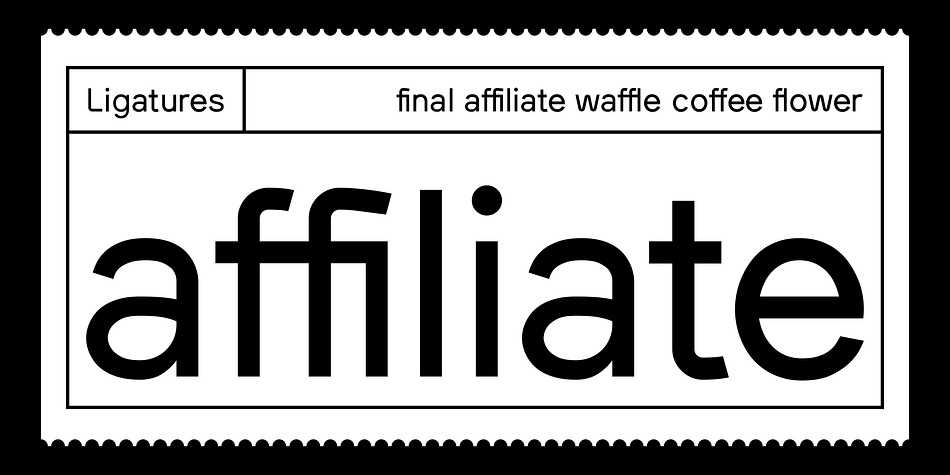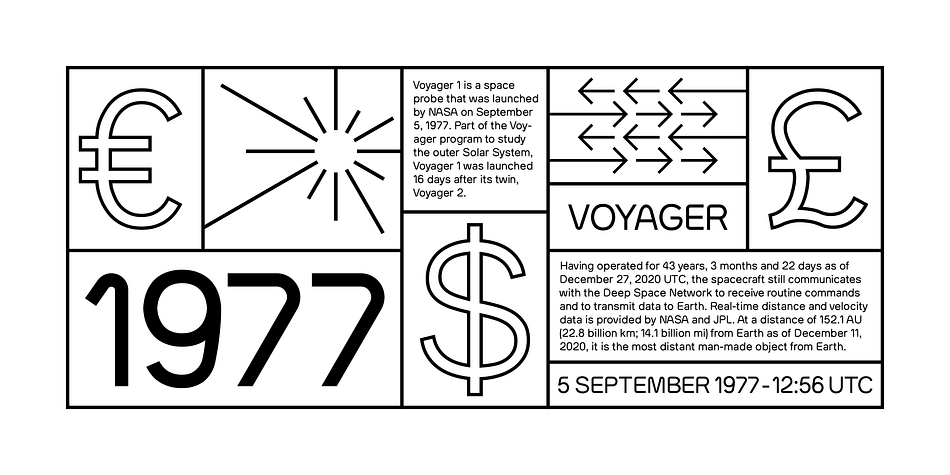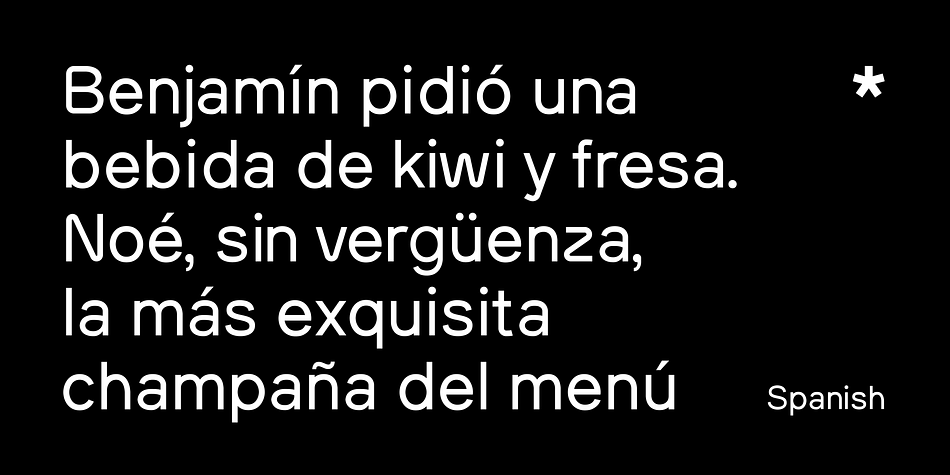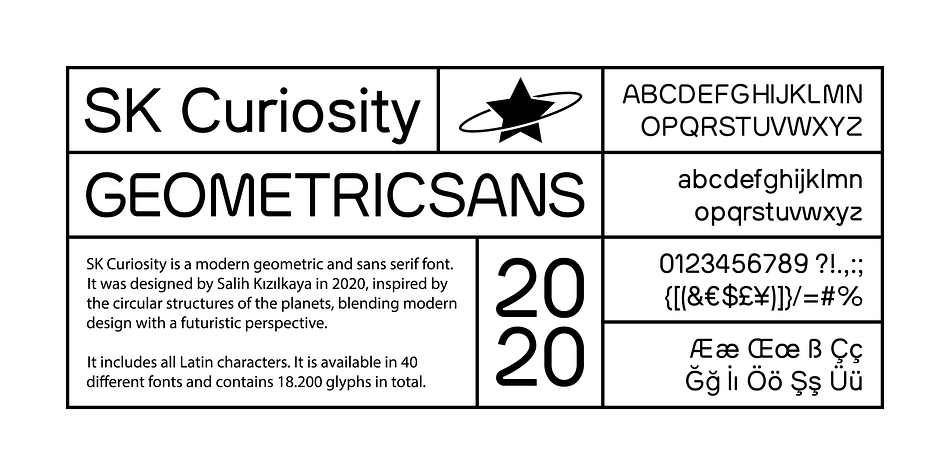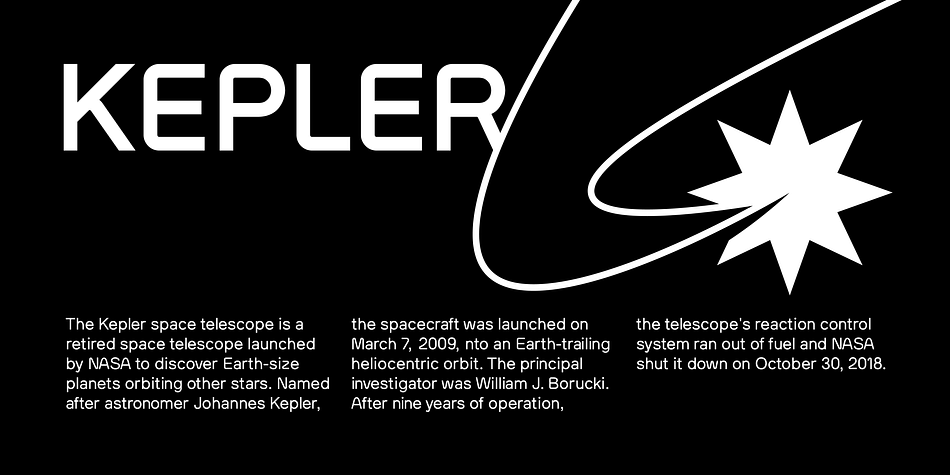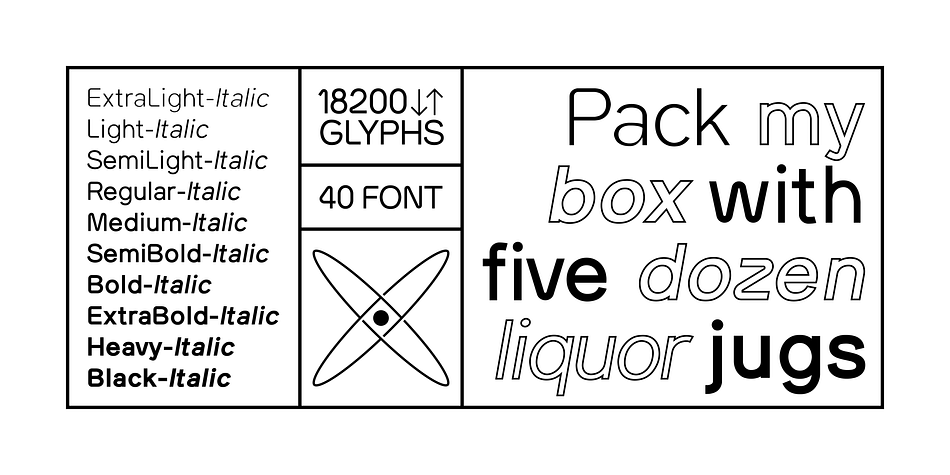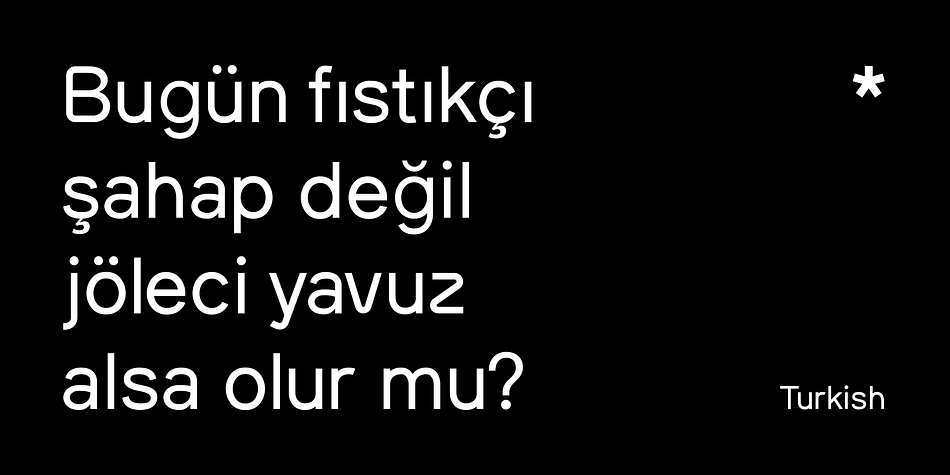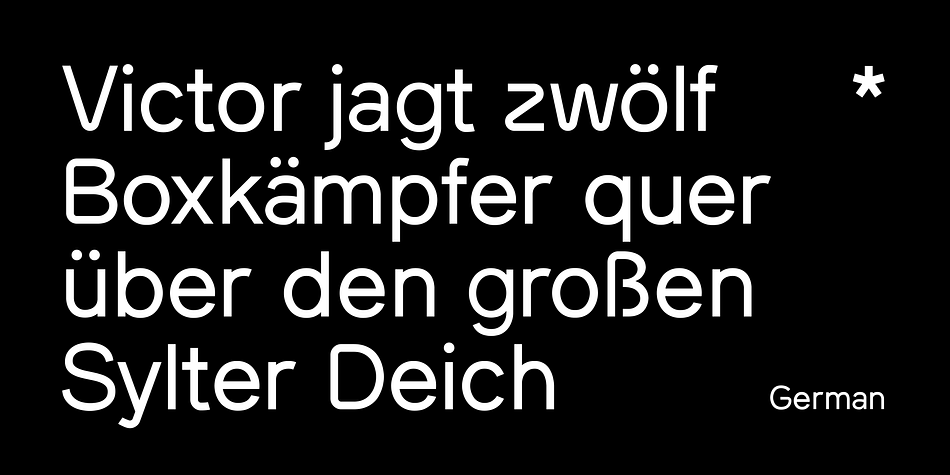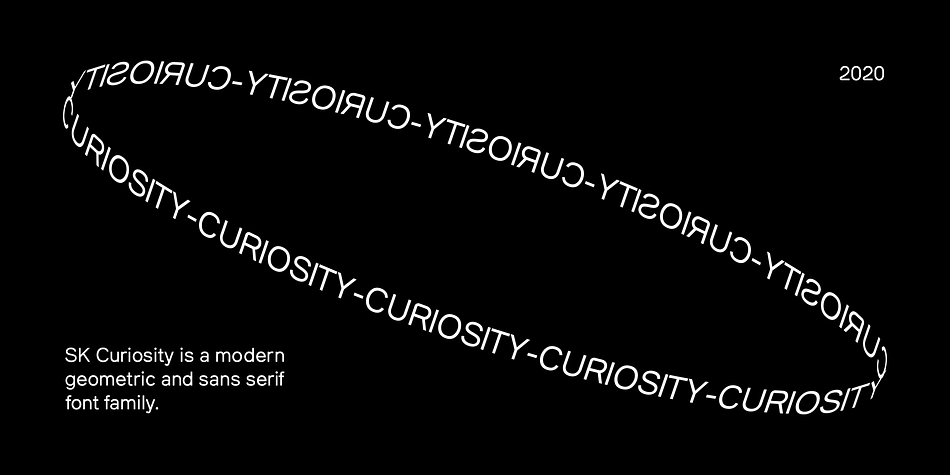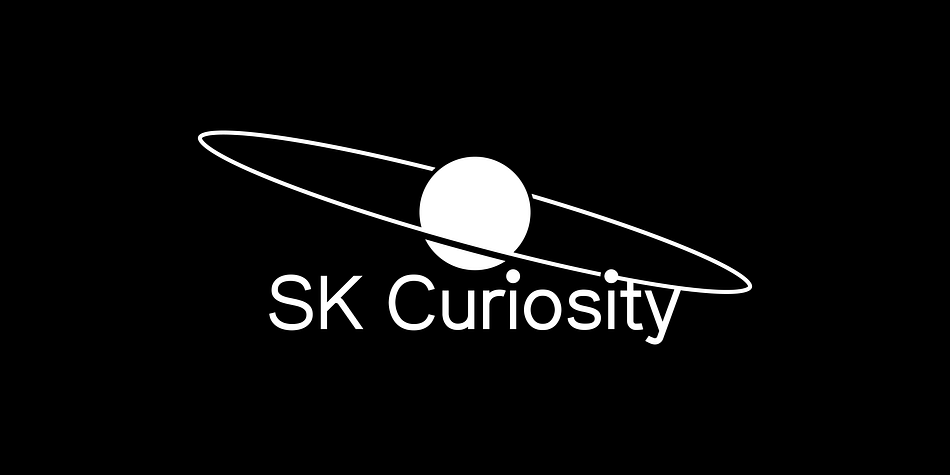
Designed by Salih Kizilkaya, SK Curiosity is a sans serif font family. This typeface has forty styles and was published by Salih Kizilkaya.
SK Curiosity is a modern geometric and sans serif font.It was designed by Salih Kızılkaya in 2020, inspired by the circular structures of the planets, blending modern design with a futuristic perspective.
It includes all Latin characters. It is available in 40 different fonts and contains 18.200 glyphs in total.